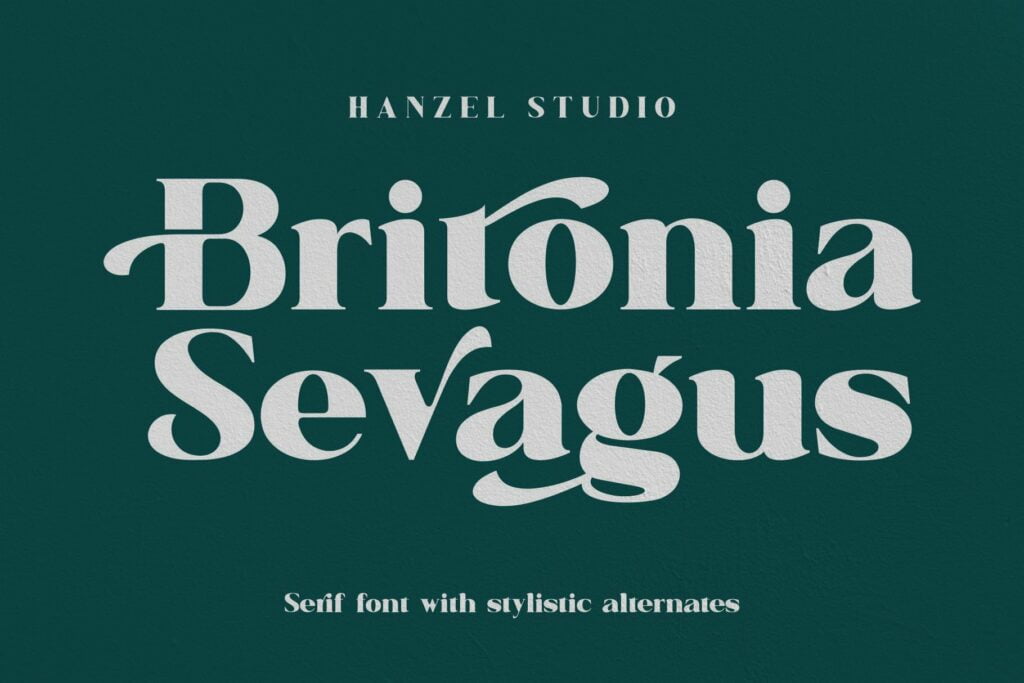
Britonia Sevagus Font
Britonia Sevagus feels modern and unique. This sophisticated serif font features chunky and extended characters that will look particularly adept when used in logos, branding, packaging design, and much more.